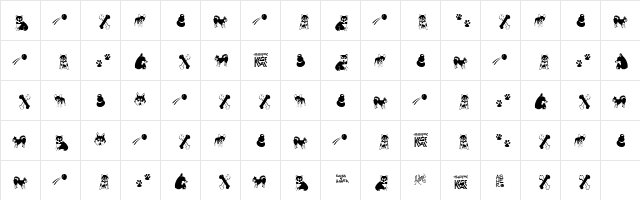
Dingbash Regular
| Designer | BessAsher Rebel |
Dingbash is a composed and adaptable typeface that performs quietly and consistently across a wide range of design contexts.